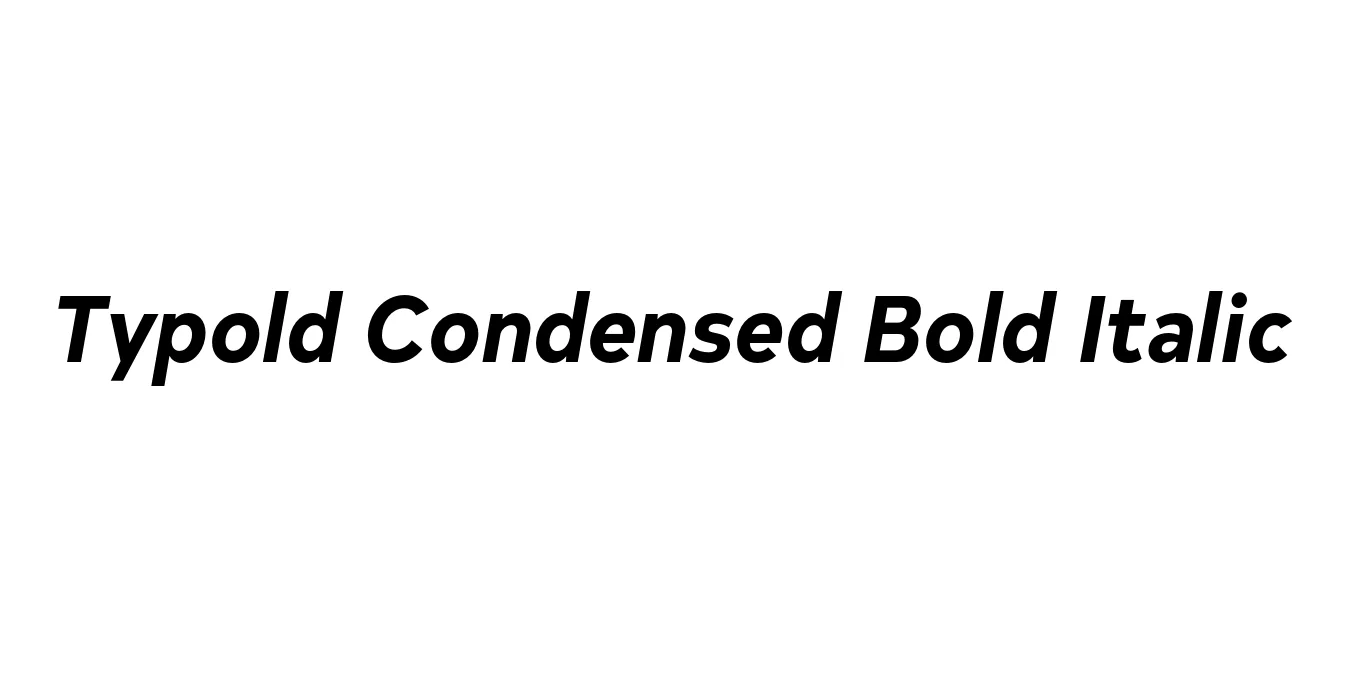
Typold Condensed Bold Italic
Designed by Jonathan Hill
Typold Condensed Bold Italic is a sophisticated geometric sans-serif typeface designed by Jonathan Hill for The Northern Block. It represents a meticulous evolution of the original Typold family, optimized for space-saving layouts without sacrificing the robust structural integrity that the series is known for. The bold italic weight adds a sense of urgency and dynamic motion, making it ideal for impactful editorial design and modern branding environments.
The construction of the font is based on mathematical precision, featuring balanced proportions and clean lines that ensure excellent readability even in cramped digital interfaces. As part of a larger superfamily, the Typold Condensed variant is specifically engineered for high-performance typography where horizontal space is at a premium, such as in mobile application headers or complex information charts.
Typold Condensed Bold Italic Best Uses
Perfect for attention-grabbing, compact titles in magazines or websites.
Excellent for UI elements where screen real estate is limited.
Highly legible for directional signage and public transport maps.
Conveys a sense of modern efficiency and forward-thinking strength.